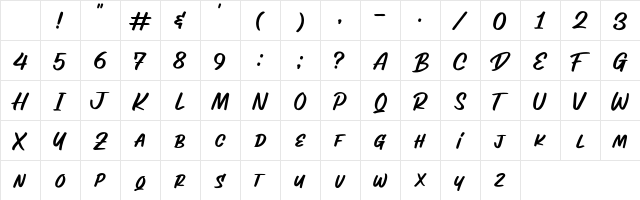
Complete Awesome Brusher Regular glyph index. Displaying only characters natively supported by Awesome Brusher Regular font.
Awesome Brusher flows with the natural rhythm of handwritten lettering, making it ideal for designs that call for warmth and personal expression.
Font Pairing: Combine Awesome Brusher with a simple geometric sans for maximum contrast - the tension between flowing curves and clean structure is a classic typographic pairing.
Pro Tip: Use Awesome Brusher for short runs of text - names, titles, or taglines. Extended body copy in script faces tires the eye quickly.